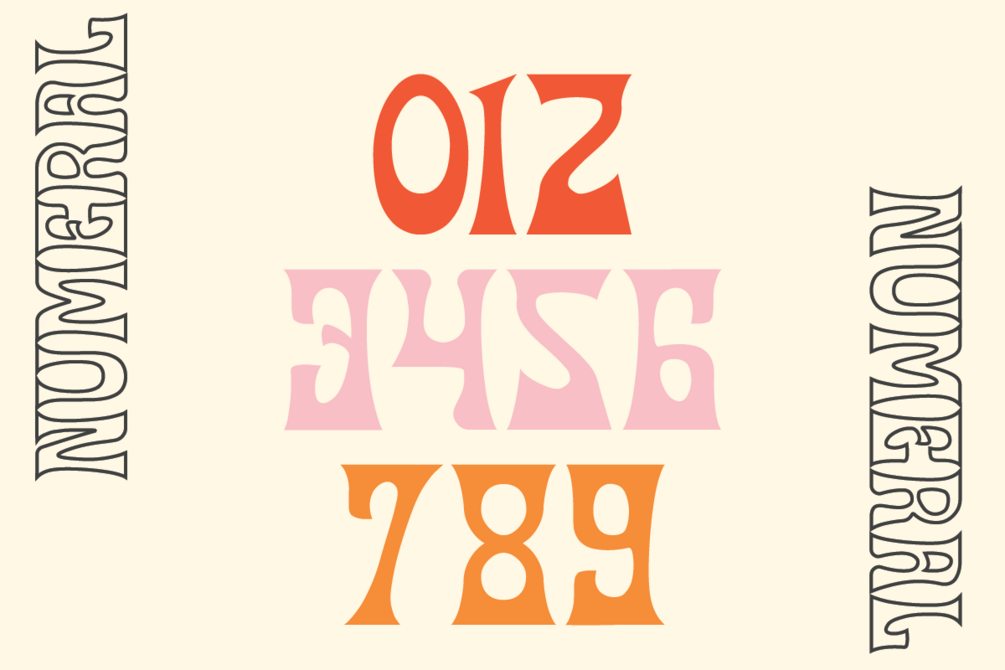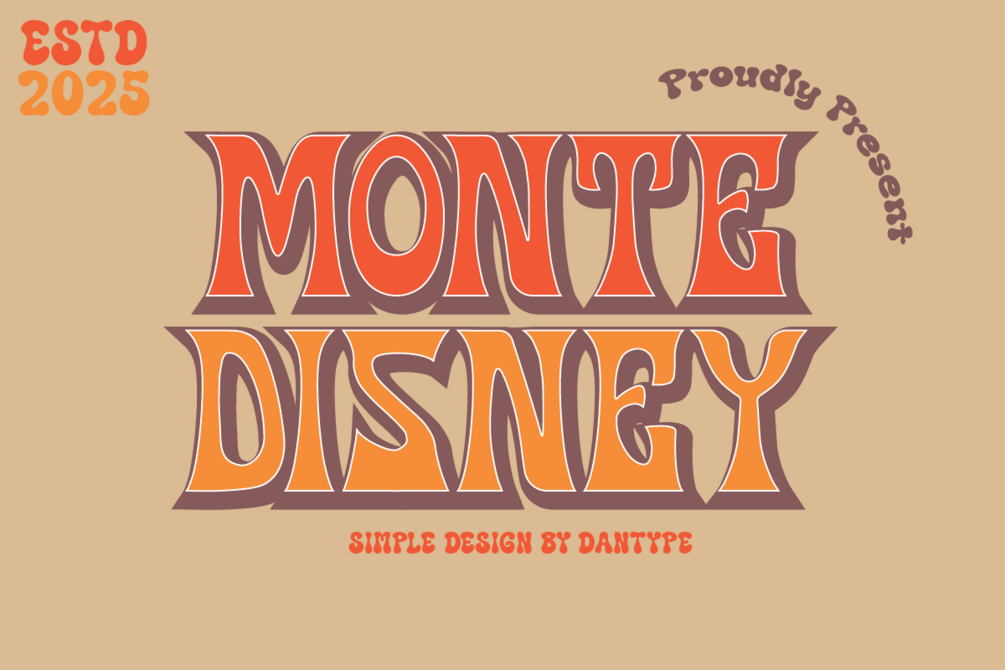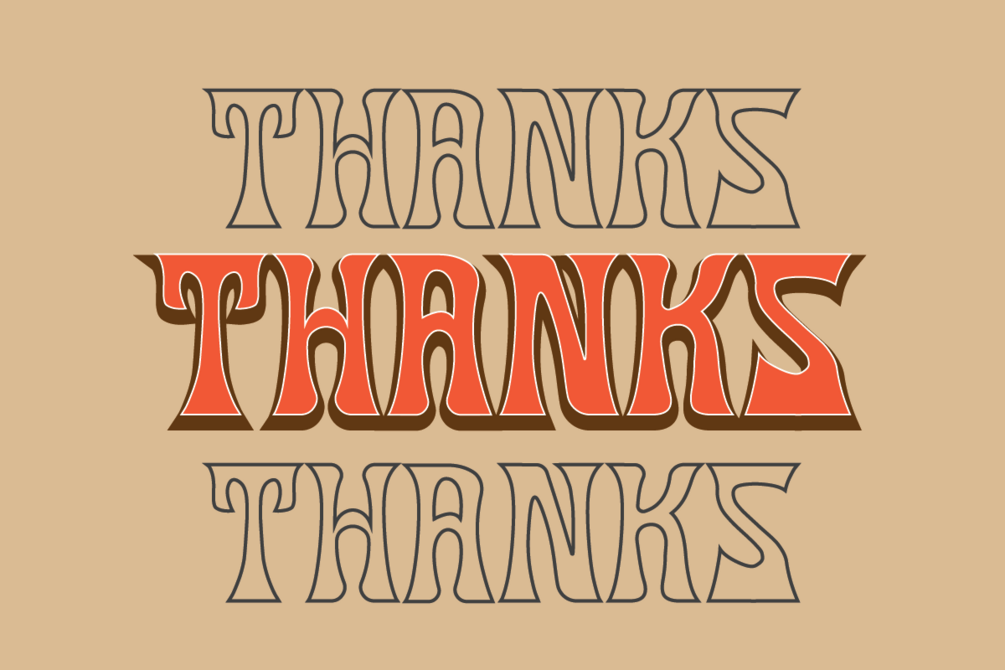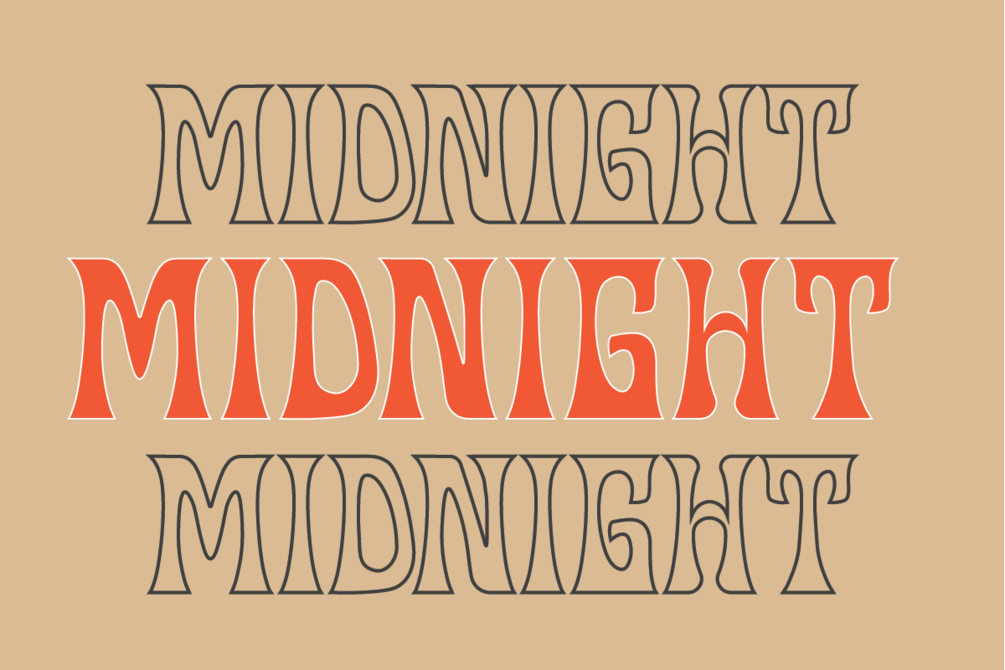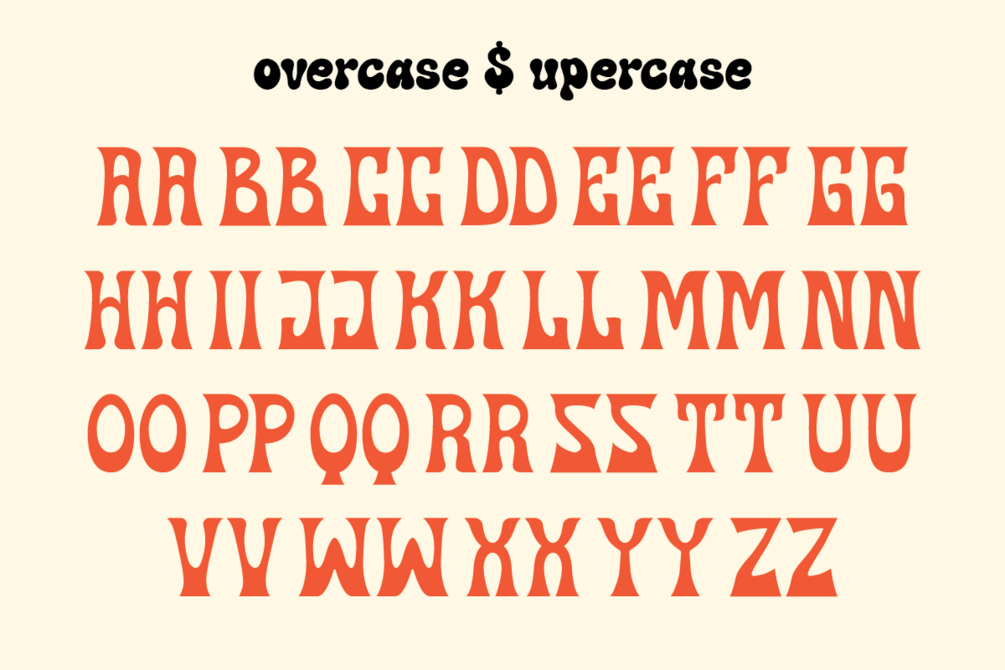
Monte Disney
Bestline Psychedelic font. This font would be perfect for photography, watermarks, social media posts, advertisements, logos & branding, invitations, product design, labels, stationery, product packaging, special events, and other projects.